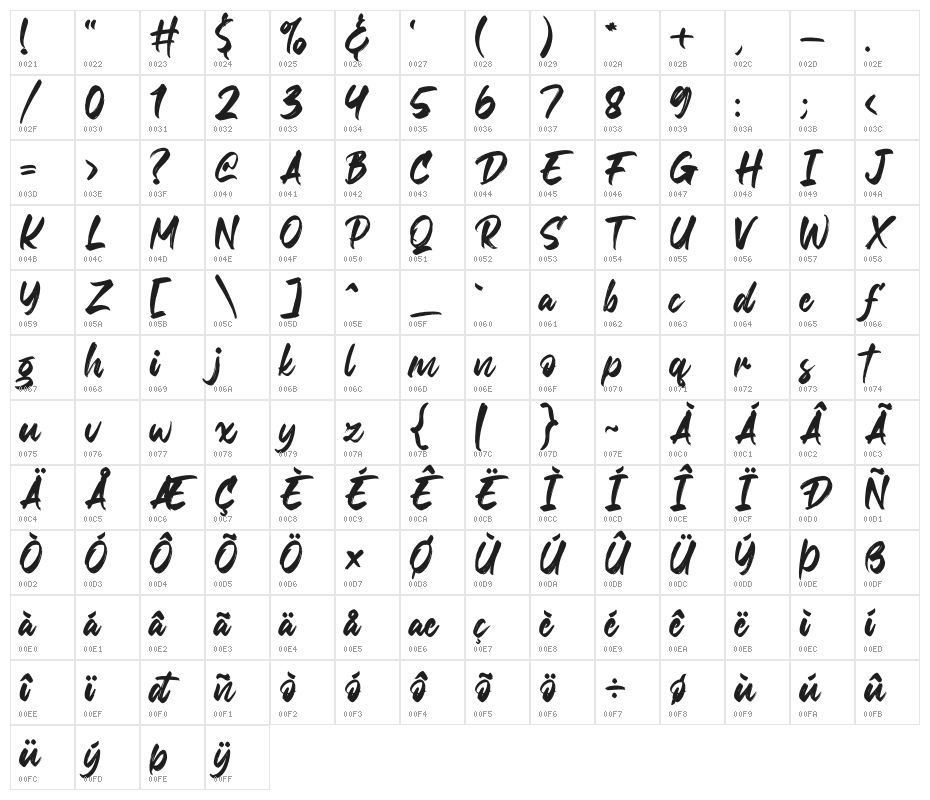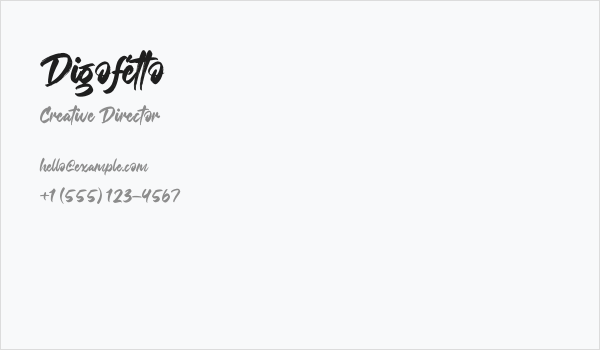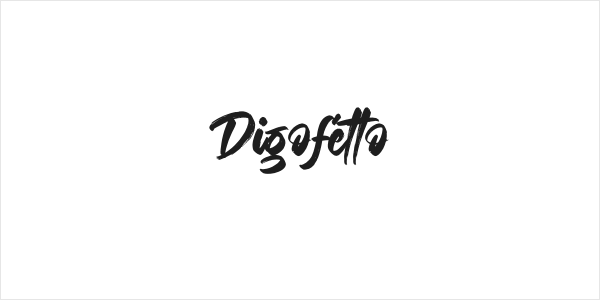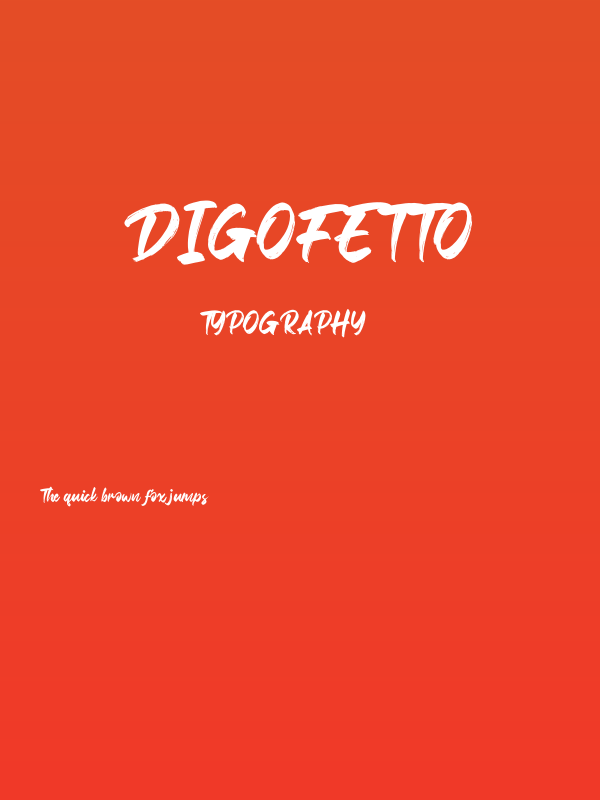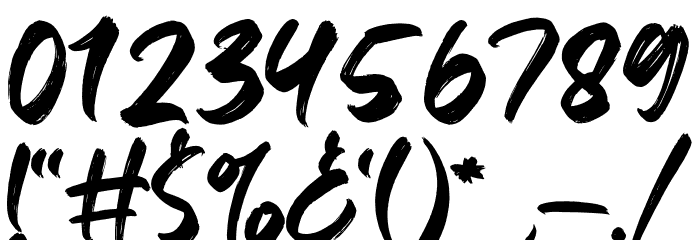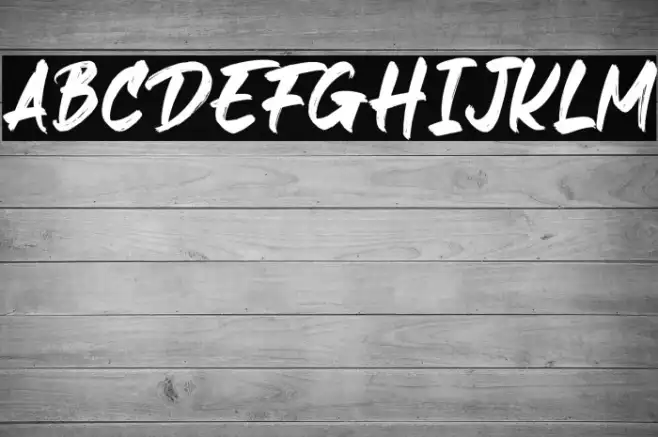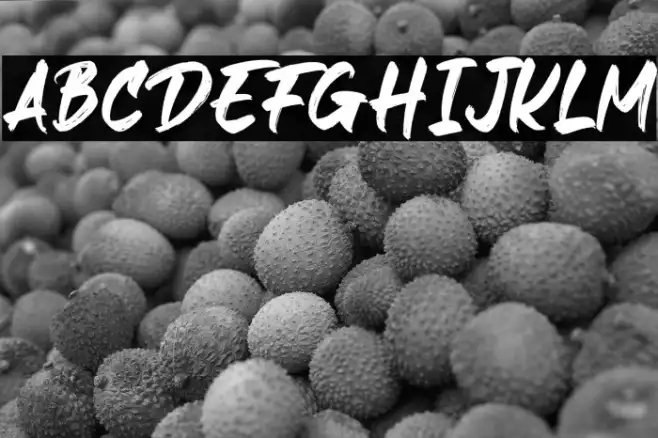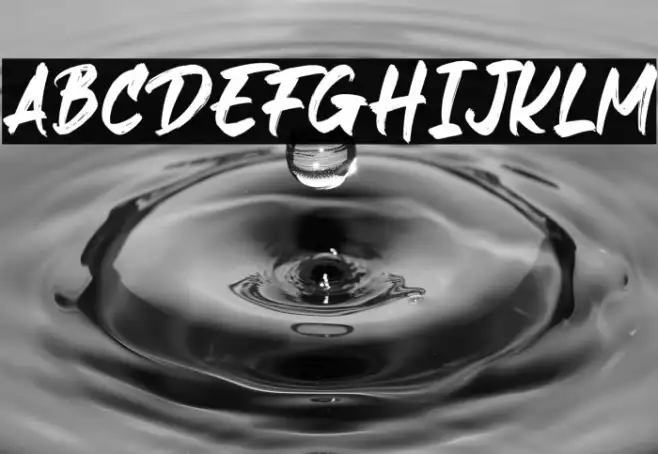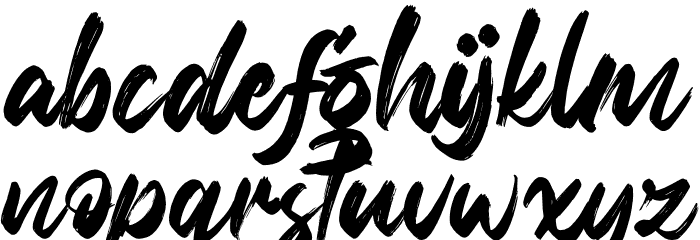
Digofetto Font
Digofetto Description
This font exudes a bold and dynamic energy, characterized by its brush-like strokes that give it a hand-painted appearance. The letters are fluid and expressive, with varying thicknesses that add a sense of movement and spontaneity. The uppercase letters are slightly more structured, while the lowercase letters maintain a casual, flowing style. Numbers and special characters follow the same artistic brushstroke theme, ensuring consistency across all elements. This font is perfect for projects that require a personal touch or a creative flair.
| Proposed Projects | Ideal for artistic posters, creative branding, event invitations, and expressive social media graphics. |